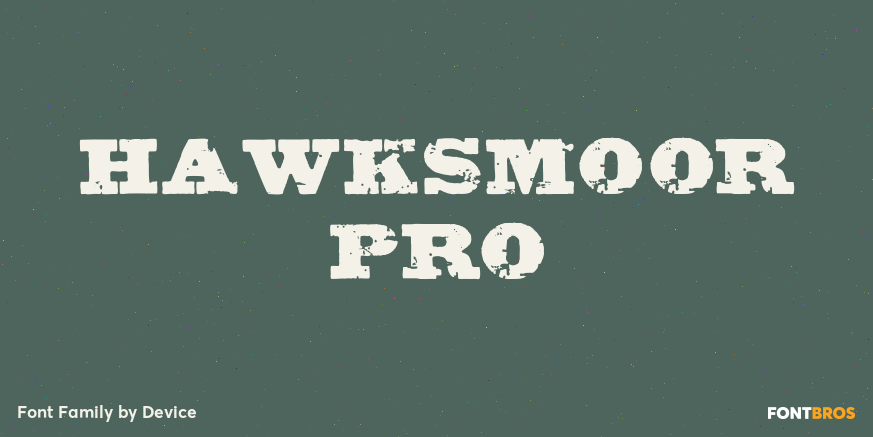
HomeFont BrosArt Deco (1910-1935)Hawksmoor Pro Art Deco (1910-1935)HistoricalSerifSpecial EffectDistressed Hawksmoor Pro FacebookXPinterestWhatsApp 1 of 1 About Hawksmoor Pro Hawksmoor is a digital font that preserves the worn and inky idiosyncrasies of old woodblock type.  DOWNLOAD ON FONT BROSThis font is sold and delivered by Font Bros. Font Canyon may earn a commission if you buy through this link. People also explored Ukrainian Will Font Finest Butter Font Quickline Font Muliany Font Mariontte Font True Royal Bella Canvas 3001 Mockup Sign That Regular Overload Font Wander Font 323 0 TagsHawksmoor Pro Font Previous articleRoselina ScriptNext articleArthura LEAVE A REPLY Cancel reply Comment: Please enter your comment! Name:* Please enter your name here Email:* You have entered an incorrect email address! Please enter your email address here Website: Save my name, email, and website in this browser for the next time I comment. Personal Use Free Mullia Personal Use Free Read more about this font Amelline Personal Use Free Read more about this font Charletto Personal Use Free Read more about this font Krait Personal Use Free Read more about this font BLOG Modern Sans-Serif Fonts That Brands Love in 2025 In 2025, modern sans-serif fonts remain a top choice for brands looking to project clarity, professionalism, and... How to Cut Any Font on Cricut: Convert a Font to SVG (Free) Exploring Font Trends The 10 Best Handwriting Fonts to Add Personality to Your Designs